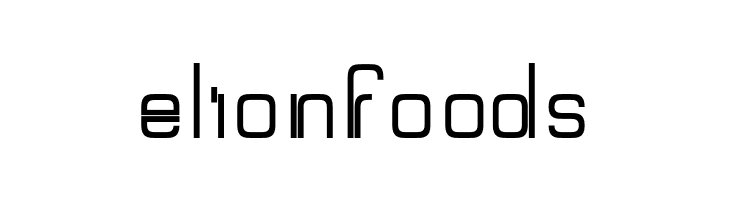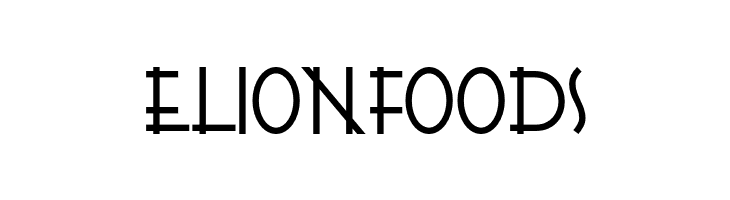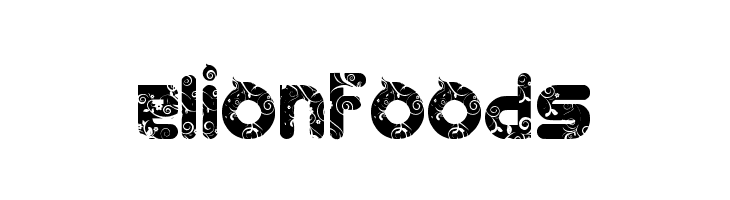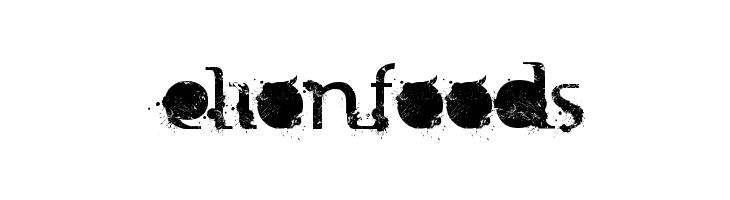
A modern, geometric font with clean lines and a minimalist style.
An ornate, calligraphic font with intricate swirls and flourishes.
A textured, sketch-like serif font with a hand-drawn, artistic feel.
A futuristic, geometric font with bold, angular letterforms and rounded edges.
A decorative font resembling tree branches with leaves, offering a natural and whimsical style.
A decorative font with floral and swirl embellishments.
A distressed, grunge-style font with a textured, vintage appearance.